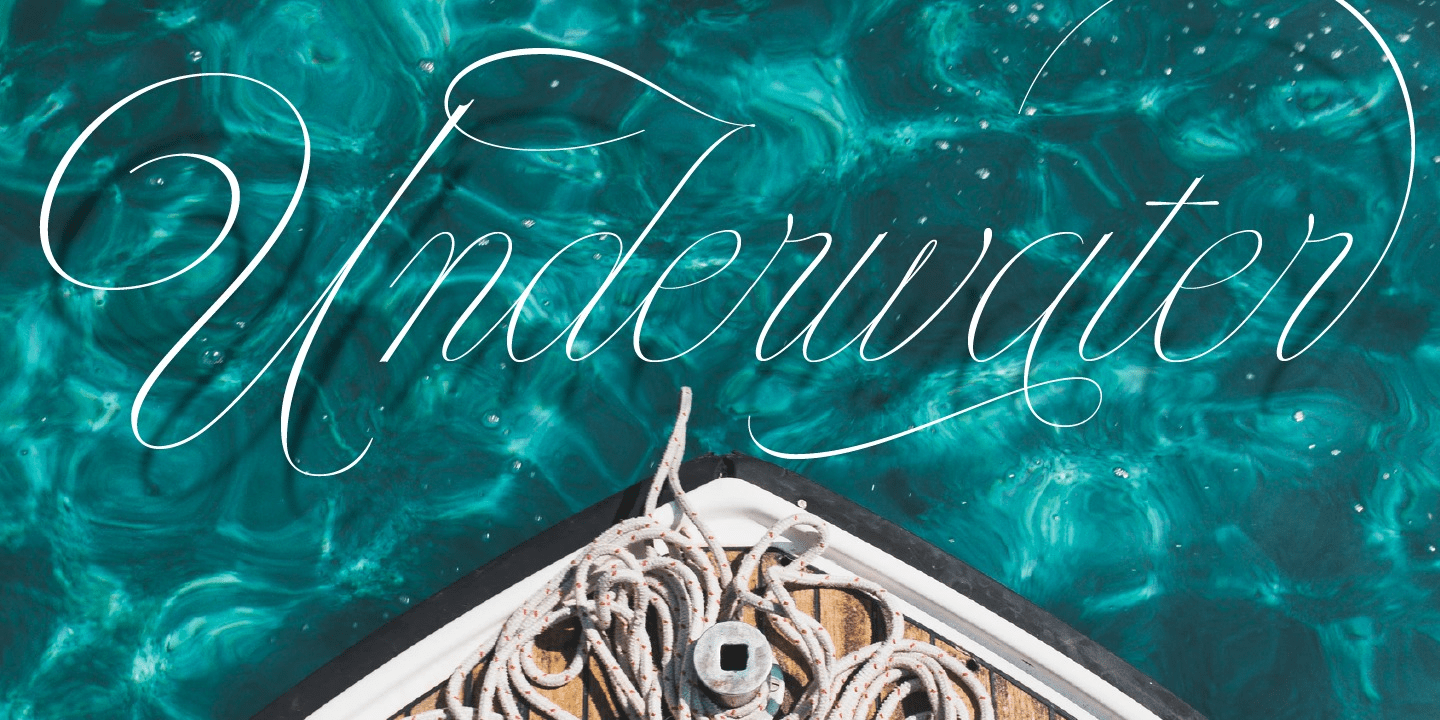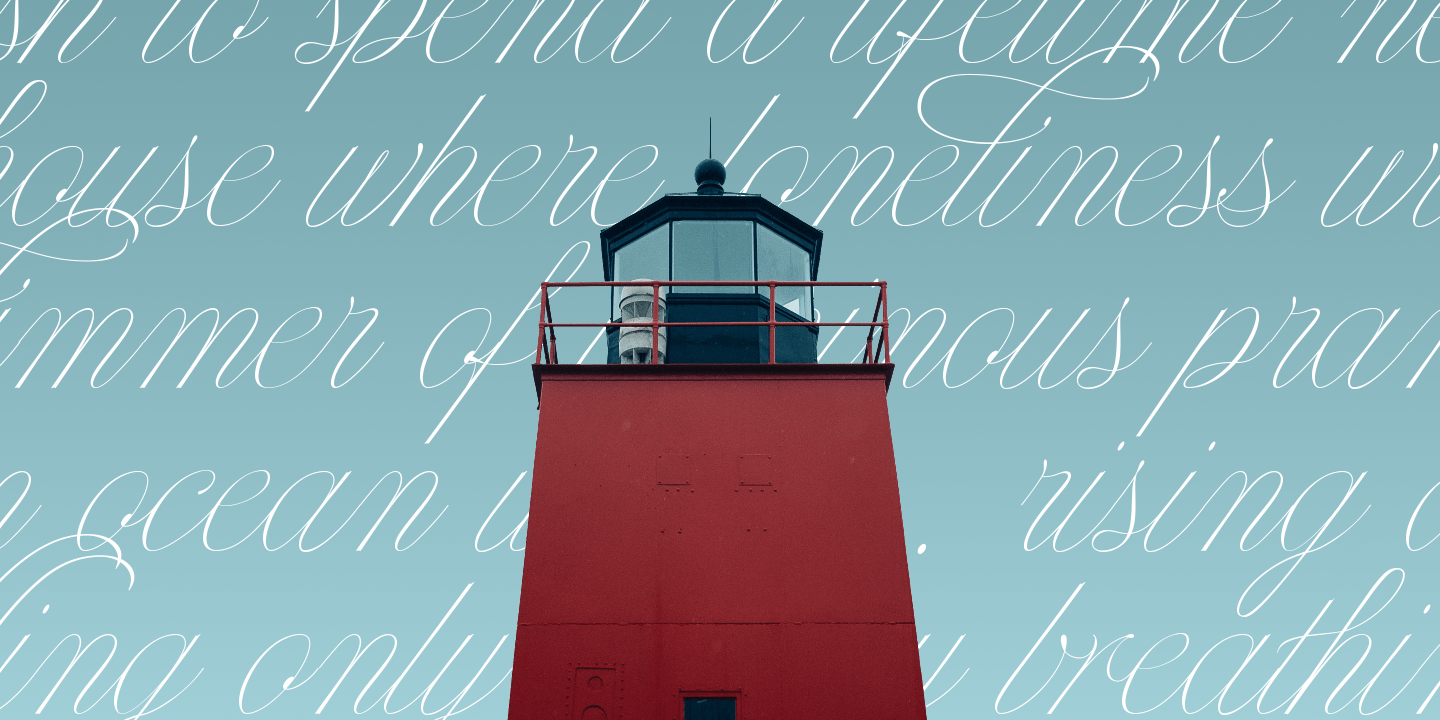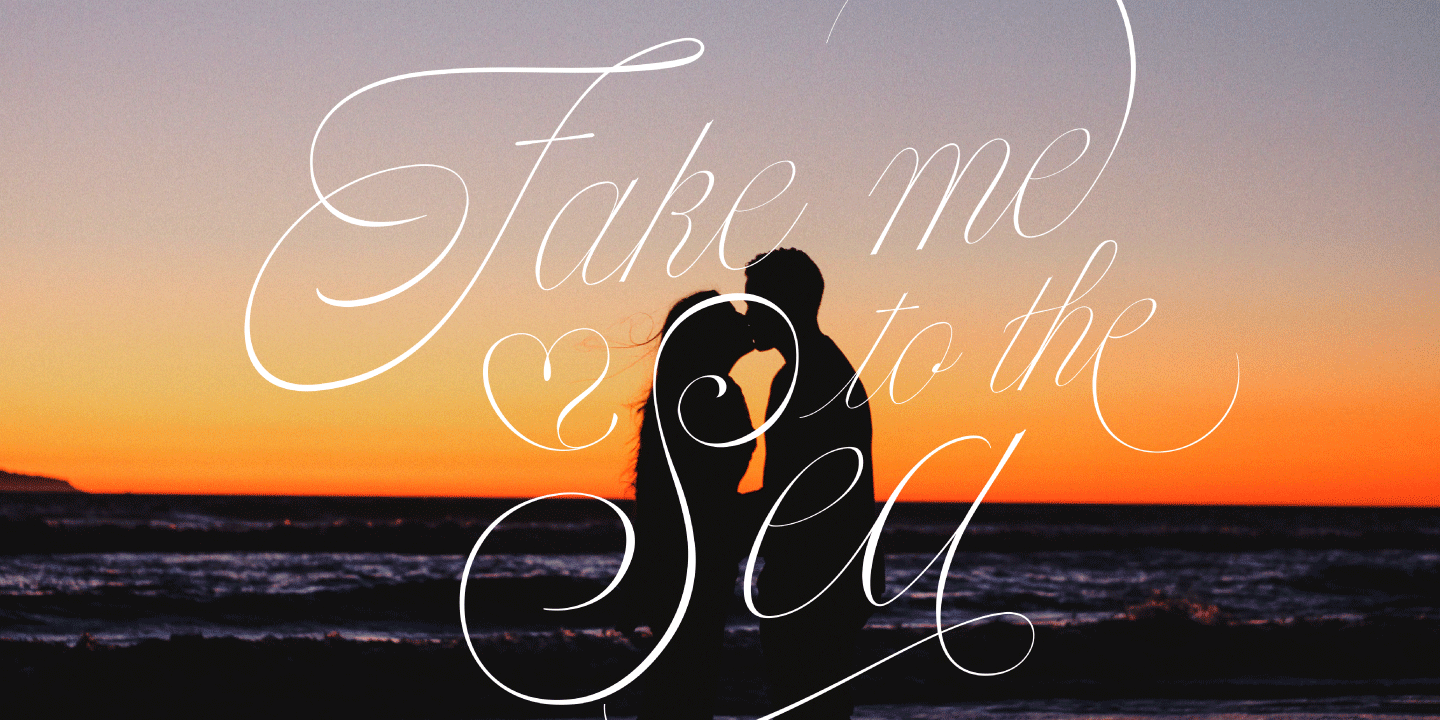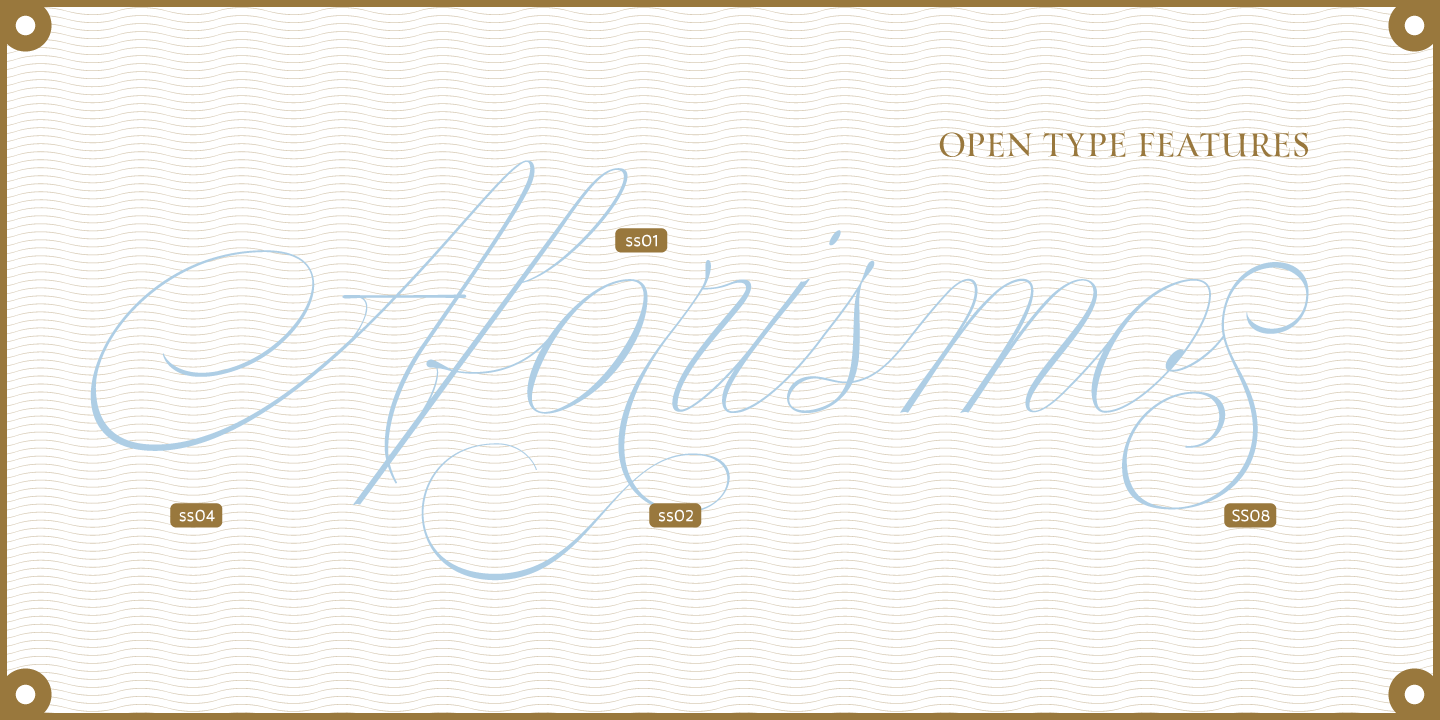
About Nautica Sottile
Nautica is a monumental new script from Resistenza, which builds on the creator\’s accomplished penmanship skills. This Copperplate penmanship style font has a distinctive flow and character, with delicate strokes that have high contrast and an extravagant…